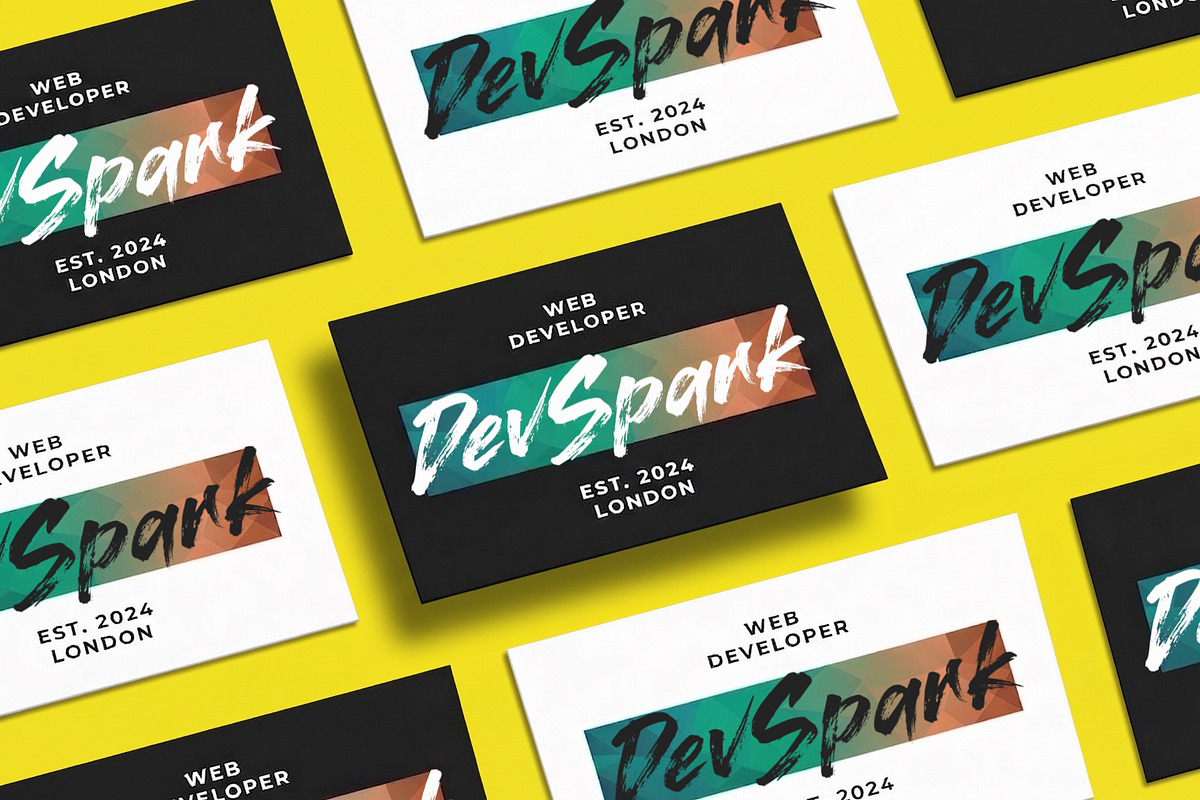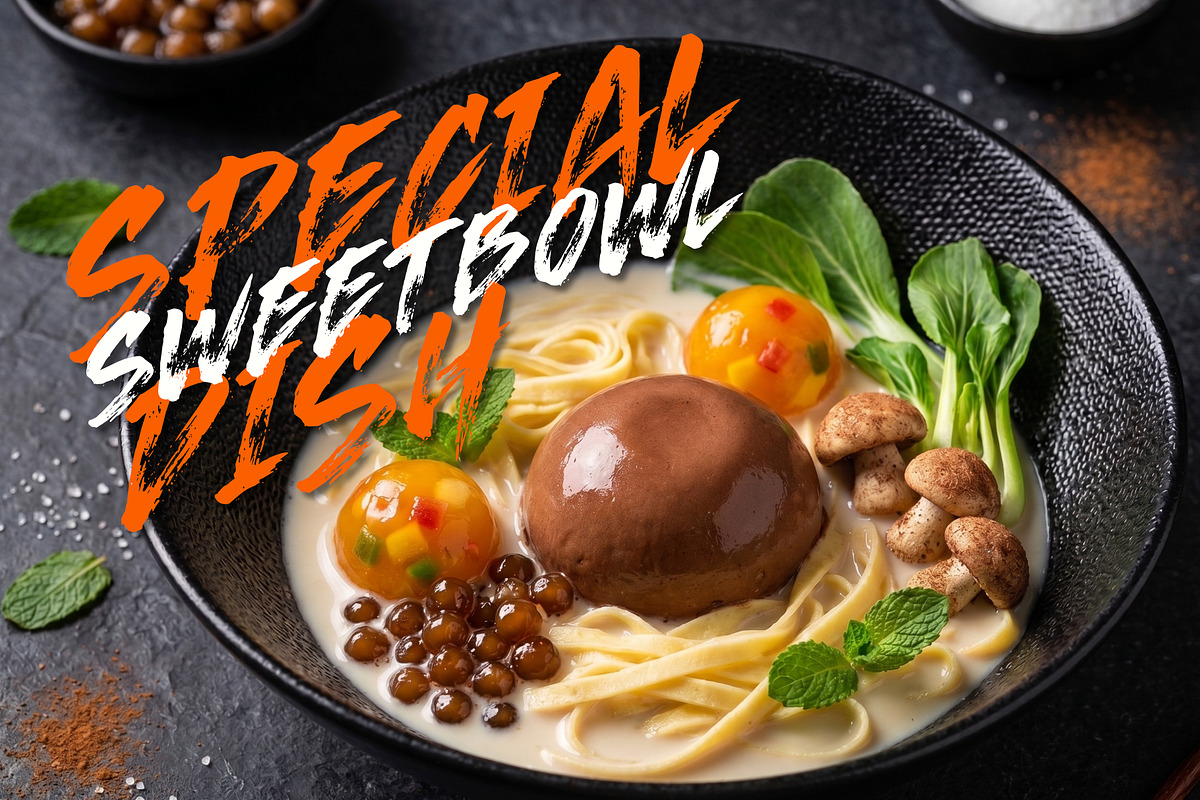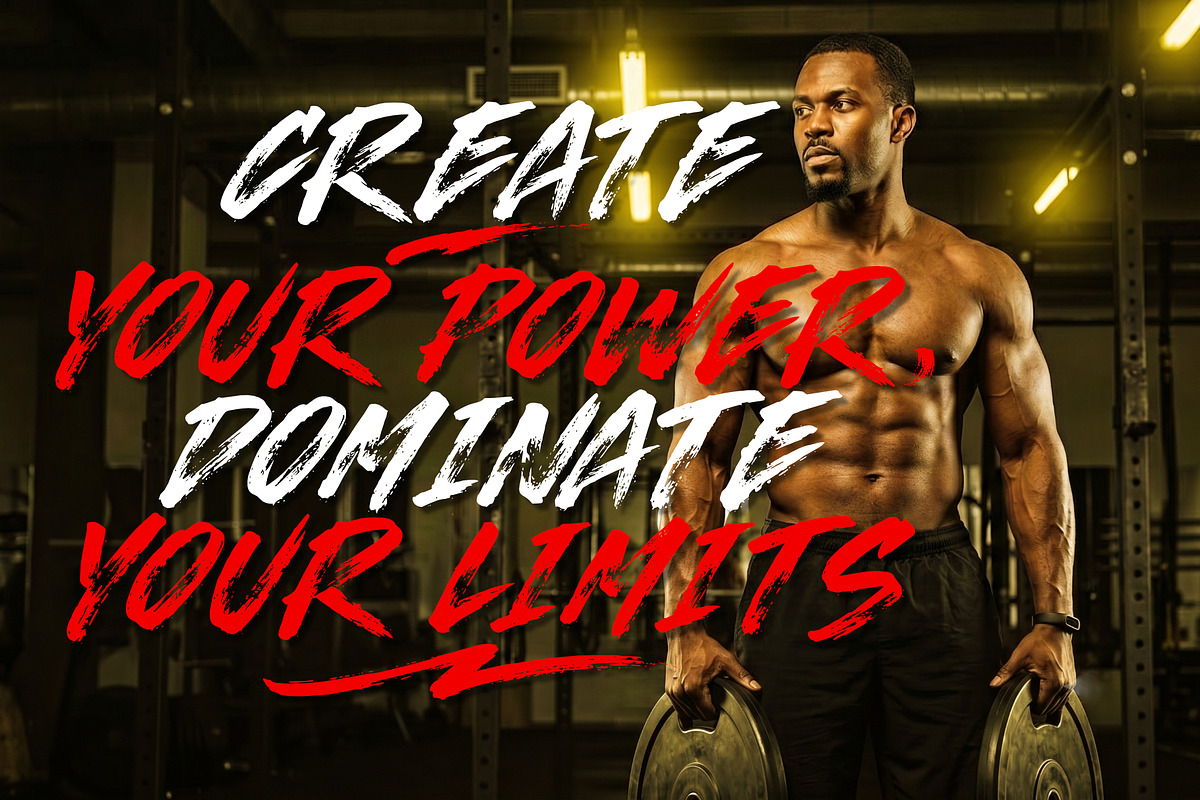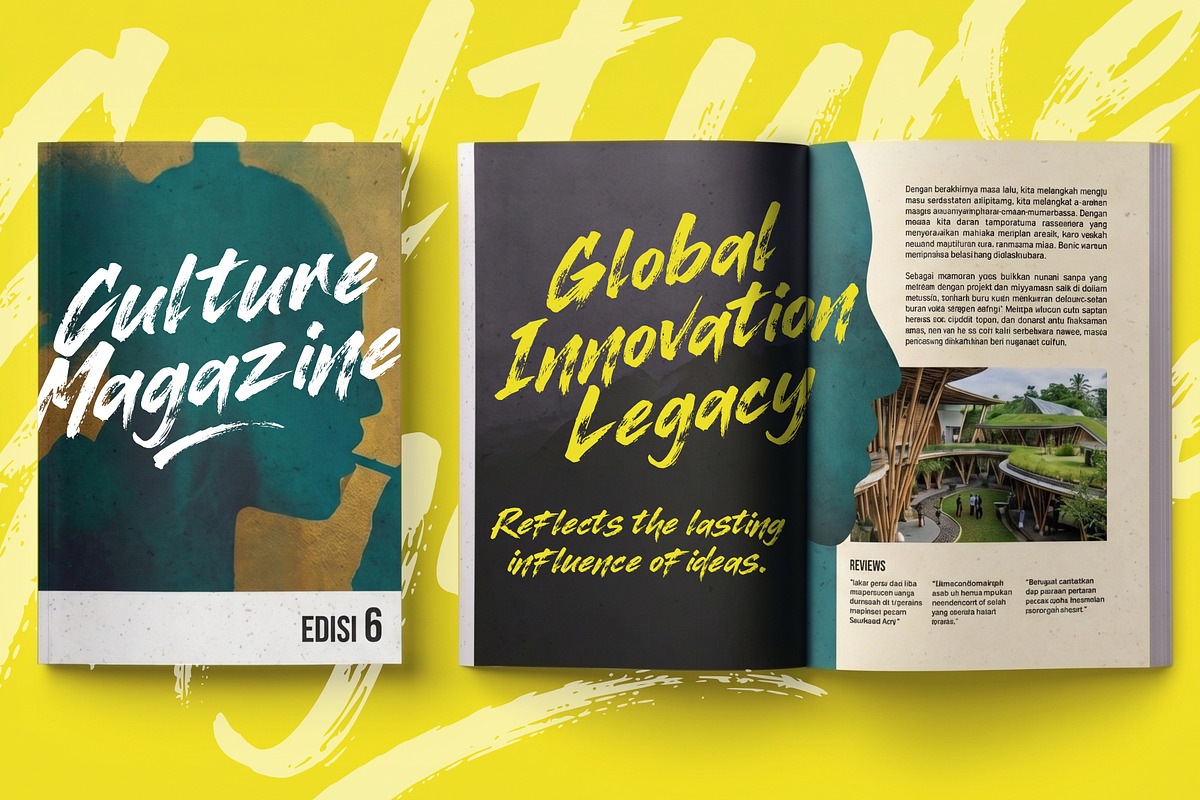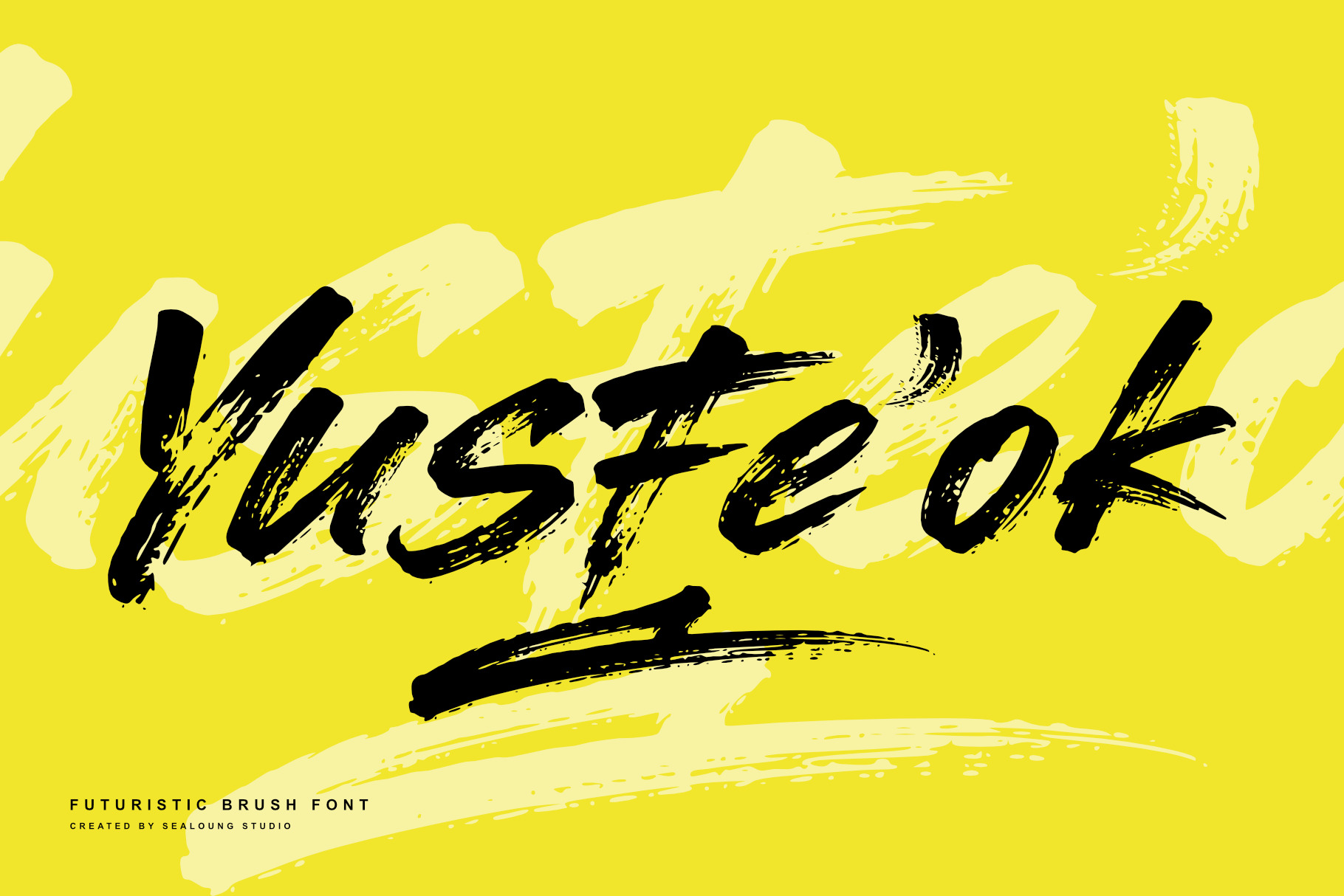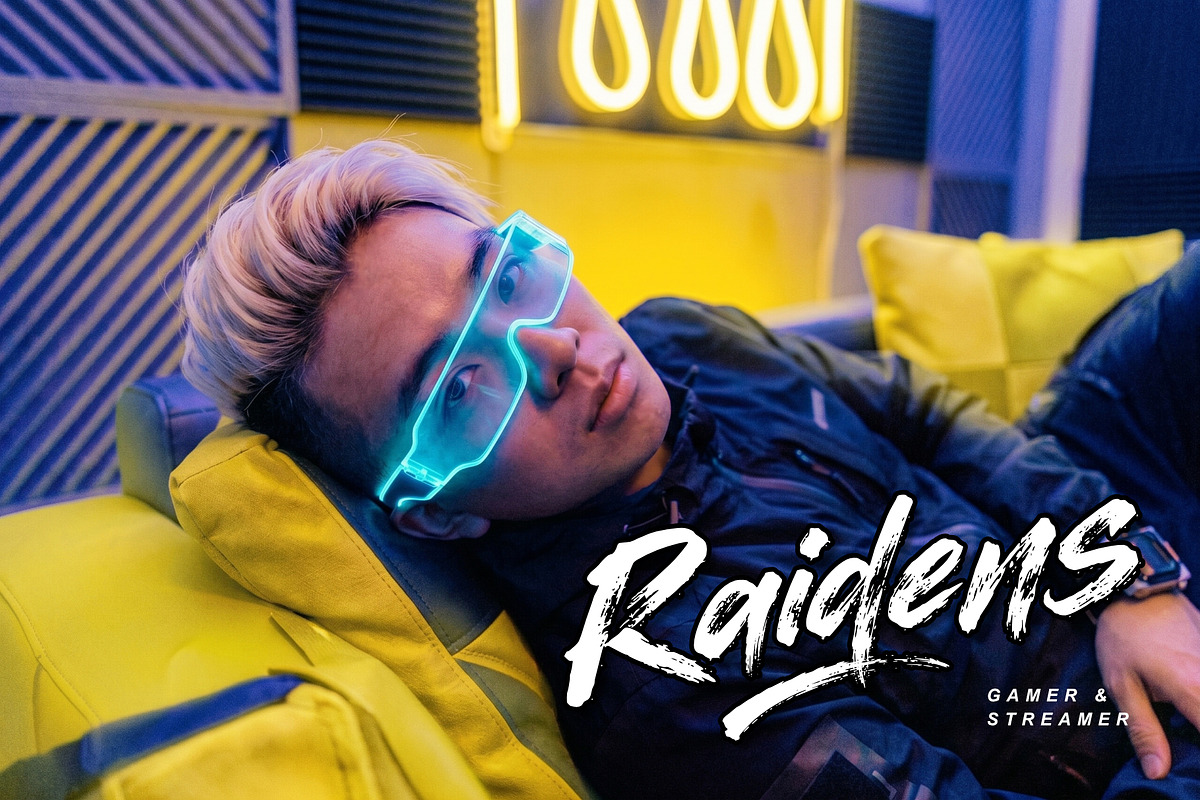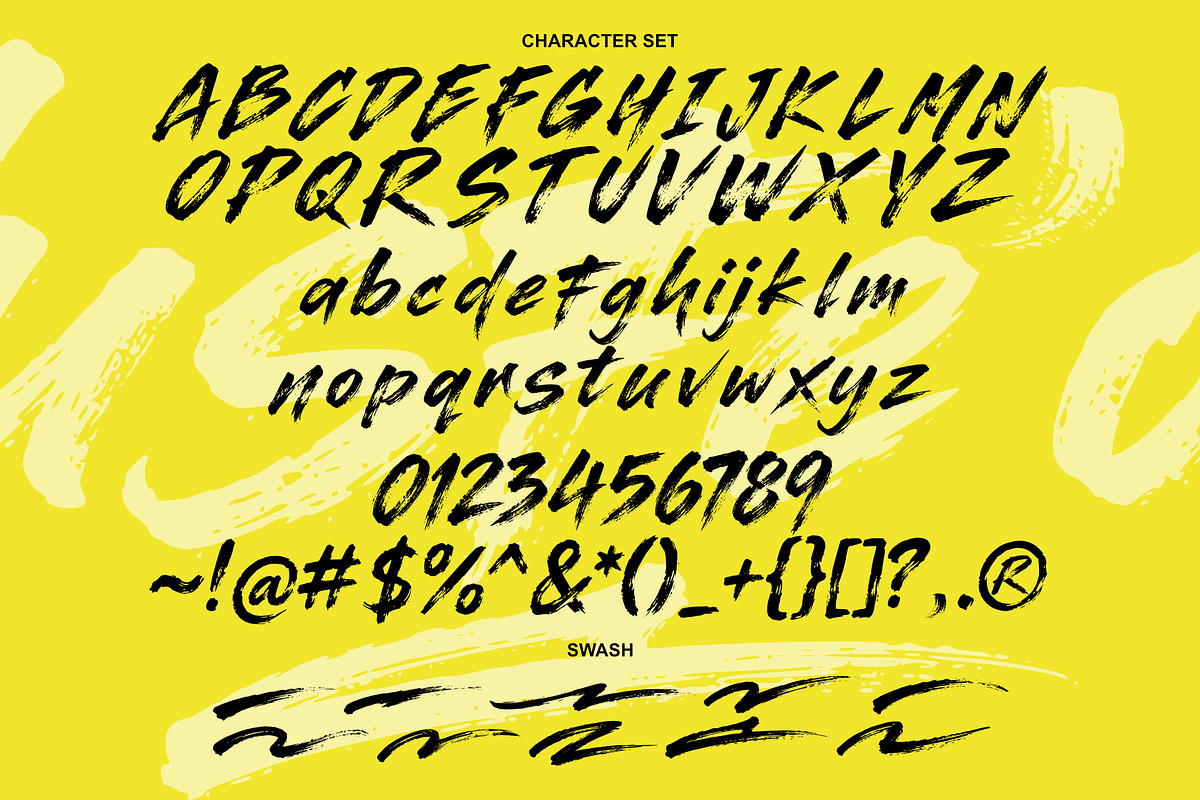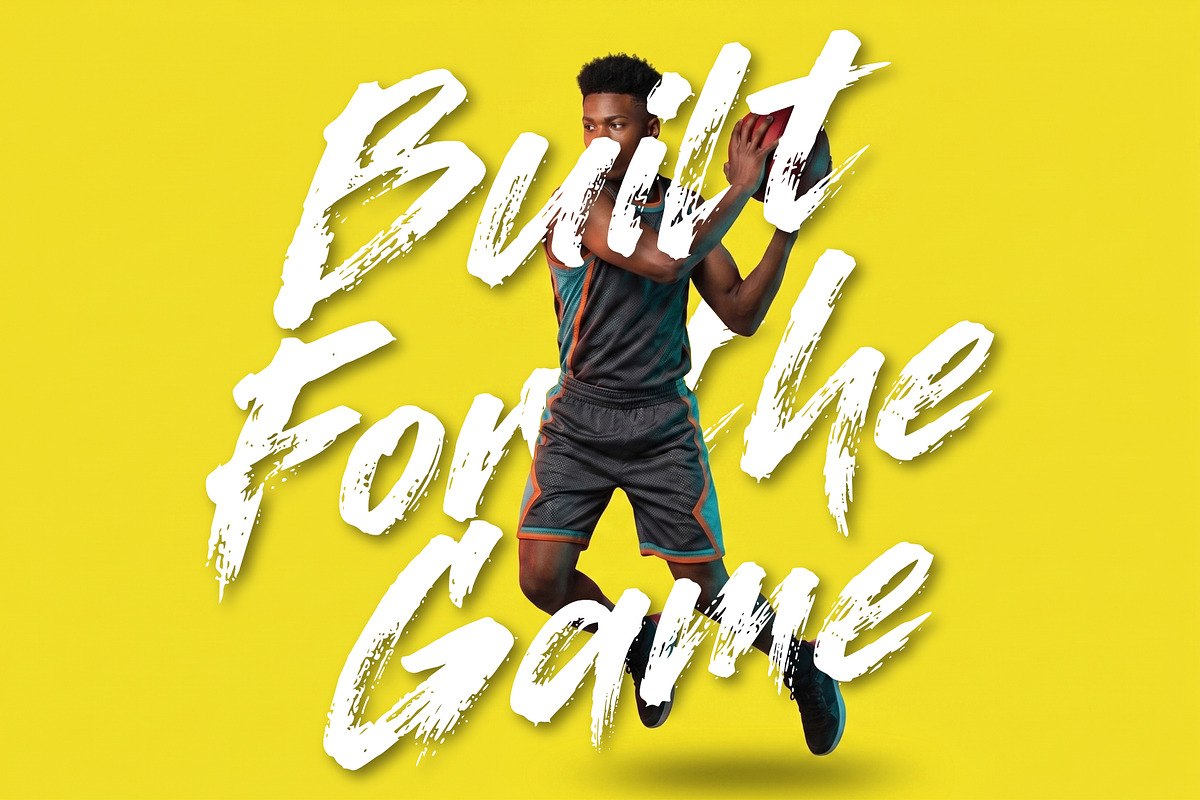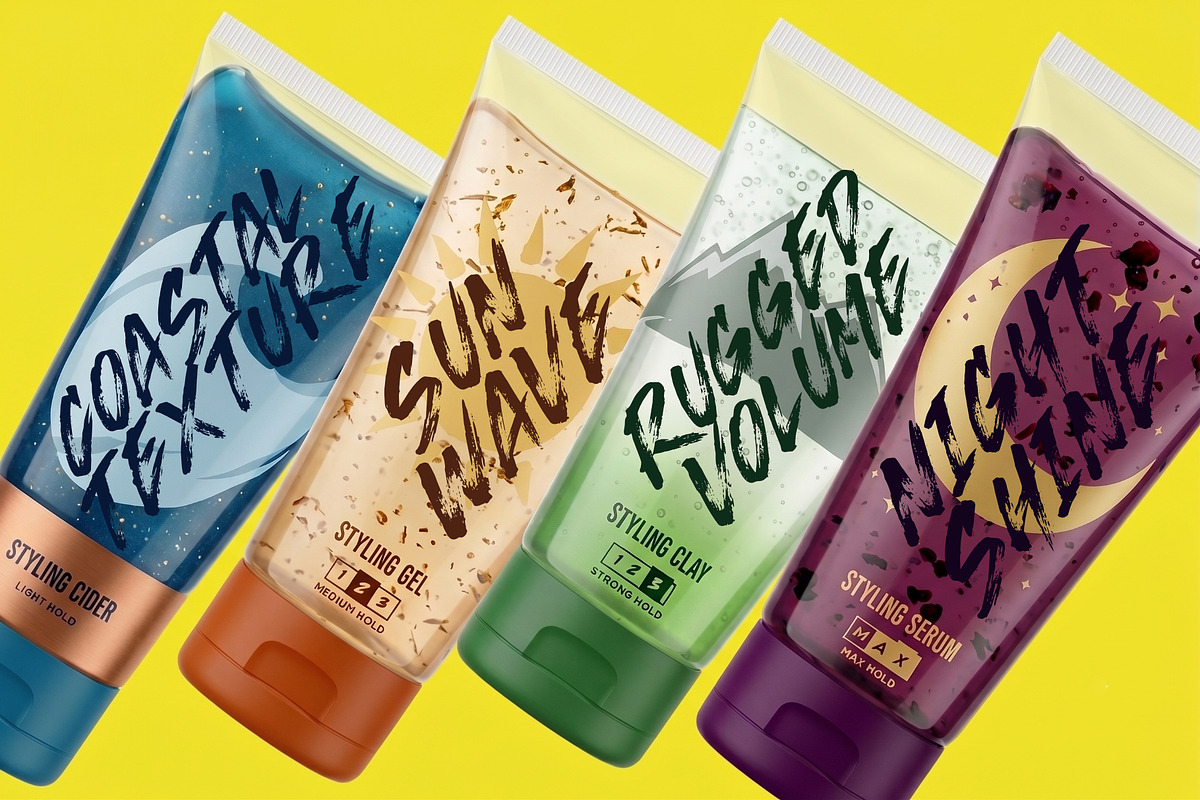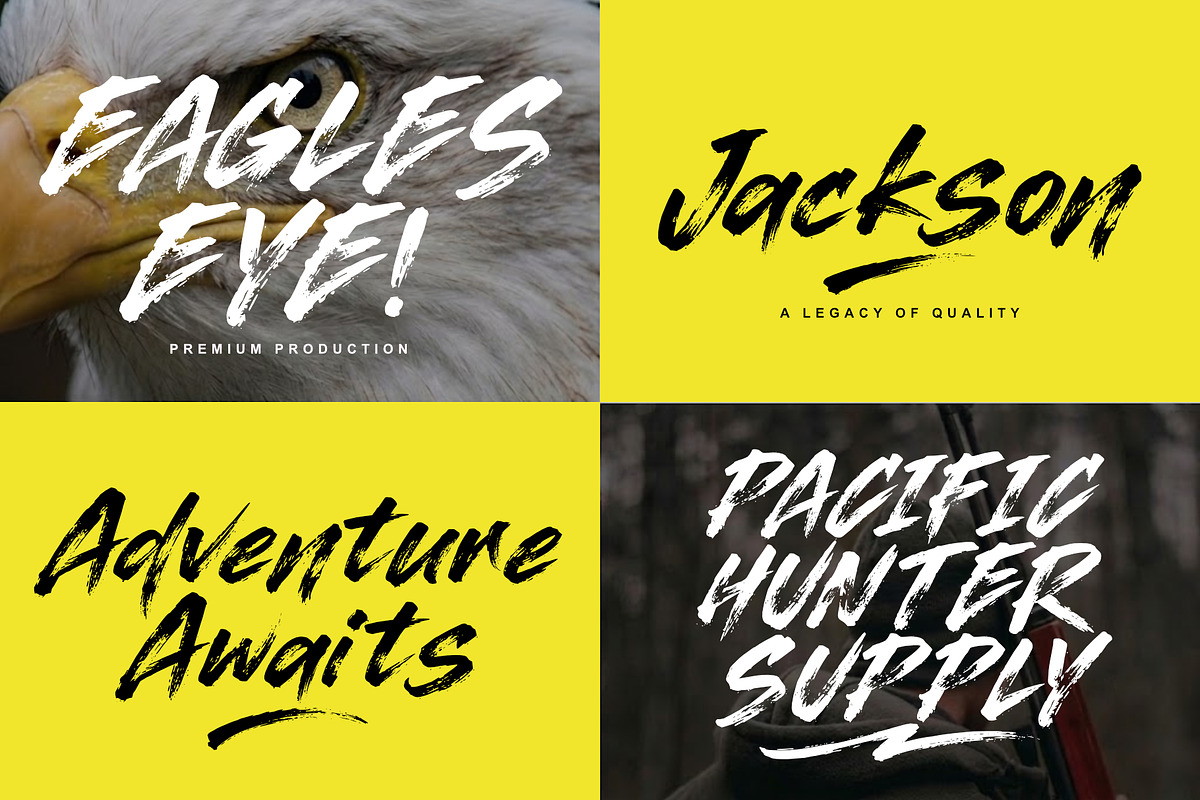
Yusfe'ok - Futuristic Brush Font
Yusfe'ok is a bold futuristic brush typeface designed to deliver strong visual impact with a raw, energetic feel. Crafted with dynamic brush strokes and expressive textures, this typeface captures a perfect balance between modern edge and handcrafted character, making it ideal for standout designs.
Built for creators who want to push boundaries, Yusfe'ok brings a powerful presence to every project. Its sharp movement and aggressive flow make it highly suitable for branding, posters, headlines, logos, music artwork, esports visuals, and contemporary creative layouts.
Uppercase & Lowercase Characters
Swash
Yusfe'ok is designed to elevate your work with bold strokes and futuristic energy perfect for designs that demand attention and leave a lasting impression.